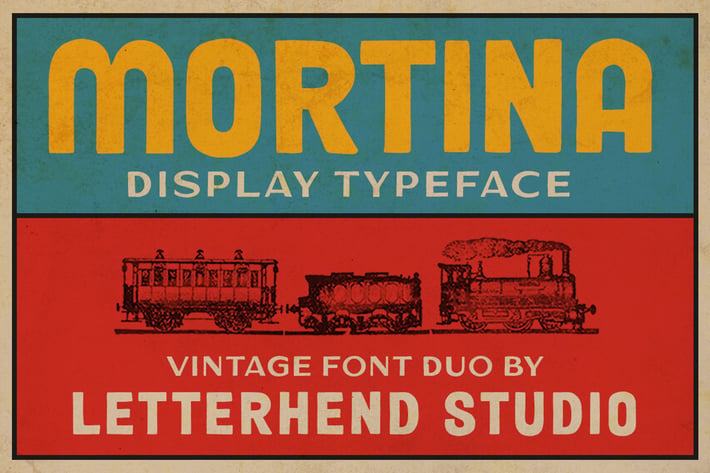
Mortina Font Duo - Display Typeface
Introducing, Mortina - a vintage sans serif font duo. Inspired by 50s 60s signages, this font made to bring back the good ol' days. This type of font perfectly made to be applied especially in logo, headline, signage and the other various formal forms such as invitations, labels, logos, magazines, books, greeting / wedding cards, packaging, fashion, make up, stationery, novels, labels or any type of advertising purpose.
+ Two fonts (Thin and bold style)
+ numbers and punctuation
+ multilingual